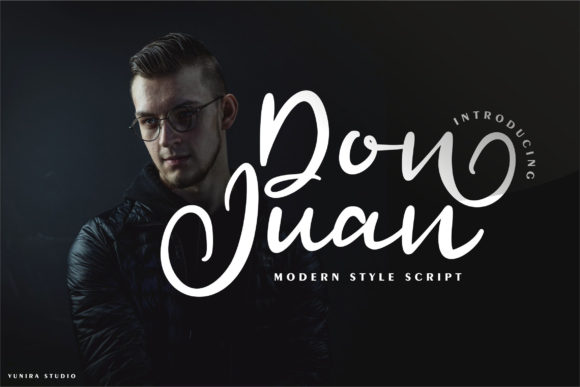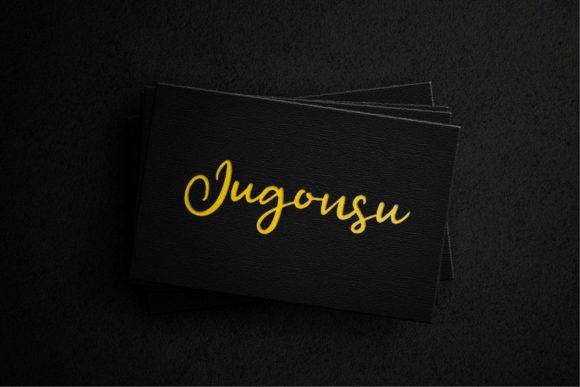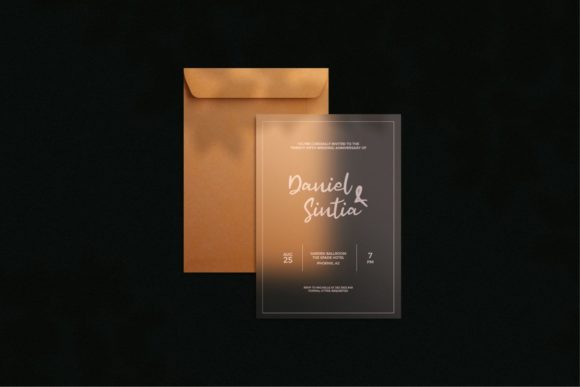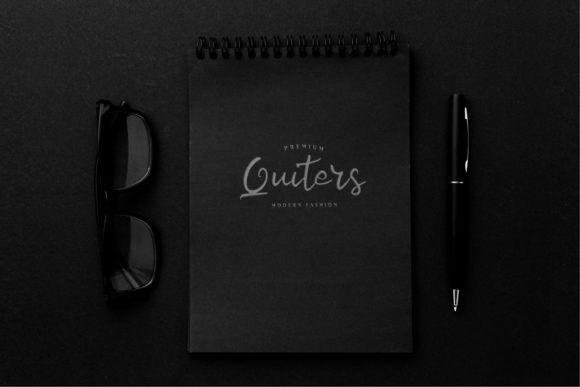
About Don Juan Font
Don Juan is an elegant and sophisticated script font that captures the essence of timeless classic calligraphy. With its contemporary atmosphere and impeccable form, this font adds a touch of elegance and refinement to any design project.
The balanced and varied letterforms of Don Juan strike the perfect balance between thin and thick strokes, creating a harmonious and visually pleasing composition. The fluid and graceful curves of each letter mimic the artistry of traditional calligraphy, lending a sense of beauty and craftsmanship to your projects.
Whether you’re designing wedding invitations, creating elegant branding materials, or crafting exquisite typographic artwork, Don Juan is the perfect choice. Its versatility allows it to shine in a wide range of applications, from logo design to editorial layouts and everything in between.
The timeless quality of Don Juan makes it a font that can stand the test of time. Its classic calligraphic style adds a touch of sophistication and elegance to any design, while still remaining contemporary and relevant. It effortlessly combines tradition and modernity, making it a versatile choice for both traditional and contemporary design projects.
The impeccable form of Don Juan ensures legibility and readability, even at smaller sizes. Each letter is meticulously crafted, creating a cohesive and visually pleasing overall appearance. The carefully designed connections between letters and the subtle variations in line weight add depth and character to your text.
With Don Juan, you can elevate the beauty of your projects and evoke a sense of timeless elegance. Its refined and graceful nature will make your designs stand out and leave a lasting impression on your audience. Whether you’re designing for print or digital, Don Juan brings a touch of sophistication and artistry to your typography.
Choose Don Juan to add an air of elegance and impeccable form to your next design project. Let its contemporary yet timeless style elevate your work and create a memorable visual experience for your audience.